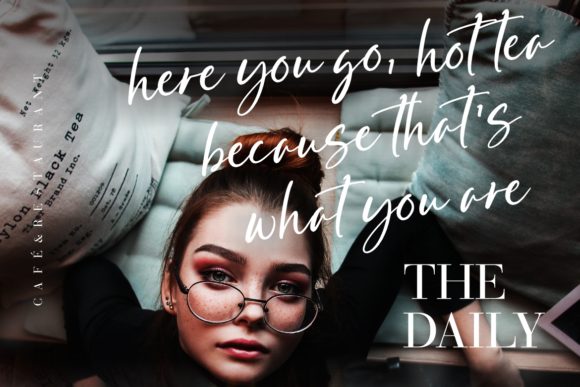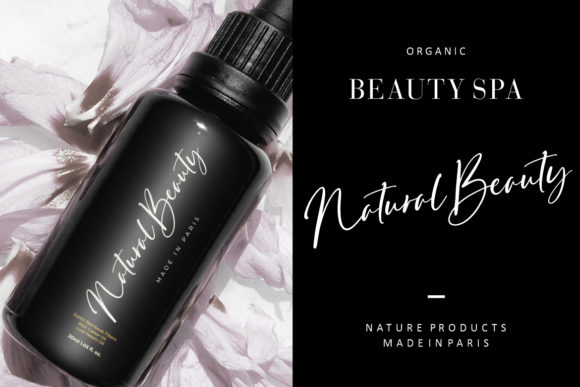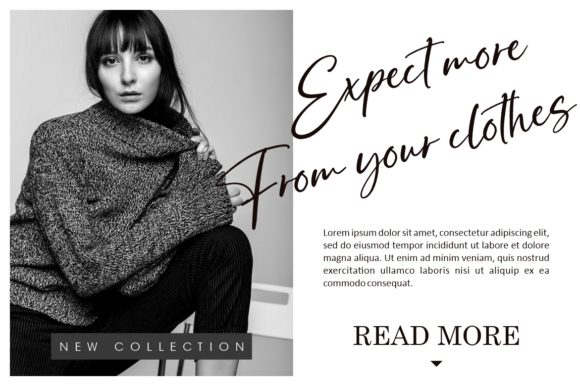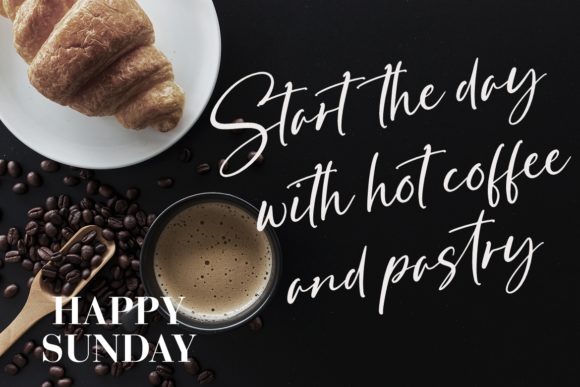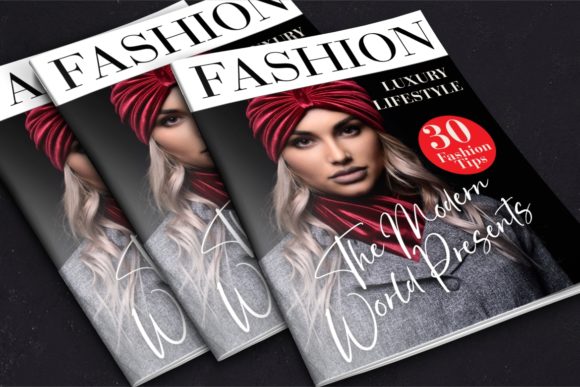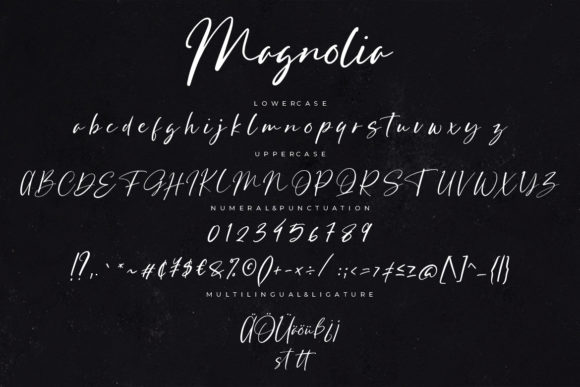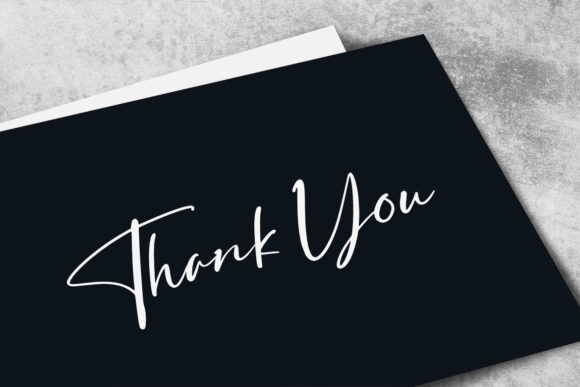
Magnolia Font
About Magnolia Font
Magnolia is a font that exudes a sense of ease and timelessness, making it the perfect choice for a wide range of designs that require a touch of relaxed elegance. With its flowing letterforms and graceful strokes, Magnolia adds a touch of natural beauty and warmth to any project.
The beauty of Magnolia lies in its effortless handwritten style, where each letter flows with a natural rhythm, creating a harmonious and visually pleasing composition. Its smooth lines and balanced proportions make it a versatile font that effortlessly complements various design aesthetics.
Wedding invitations adorned with Magnolia evoke a sense of romance and tranquility, setting the stage for a beautiful celebration of love. The font’s relaxed charm and understated elegance add a touch of intimacy and personal connection to the invitation, making it a cherished keepsake for both the couple and their guests.
Thank you cards become heartfelt expressions of gratitude with Magnolia. The font’s handwritten touch conveys sincerity and warmth, making each note a genuine and heartfelt gesture that recipients will appreciate and remember.
Quotes and greeting cards come alive with Magnolia’s relaxed and timeless appeal. Its handwritten nature adds authenticity and emotion to the words, creating a genuine connection with the reader. Whether it’s an inspirational quote or a thoughtful greeting, Magnolia enhances the message, making it resonate with authenticity and charm.
For logos and business cards, Magnolia offers a refreshing and approachable alternative. Its relaxed and welcoming style brings a touch of humanity and personal touch to brands, making them more relatable and engaging to their audience.
Magnolia’s versatility extends to social media graphics, where its relaxed and timeless charm stands out amidst the fast-paced digital landscape. Its easygoing lettering adds a touch of authenticity and relatability to online content, making it more captivating and shareable.
Fashion and lifestyle brands can tap into Magnolia’s relaxed elegance to create an approachable and inviting image. Whether on websites, packaging, or promotional materials, the font adds a sense of natural beauty and effortless style, resonating with audiences who seek a balance of sophistication and comfort.
The timeless allure of Magnolia ensures that it remains a staple font for years to come. Its relaxed and timeless charm transcends trends, making it a reliable choice for designers and creators seeking a font that will stand the test of time.
Incorporate Magnolia into your design projects, and witness how it elevates them with its relaxed and timeless appeal. Whether on wedding invitations, thank you cards, quotes, logos, or any other creative endeavor, Magnolia will infuse your designs with a sense of ease and elegance, leaving a lasting impression on all who encounter it. With Magnolia as your design companion, your creations will exude a natural and timeless beauty that captivates hearts and minds.